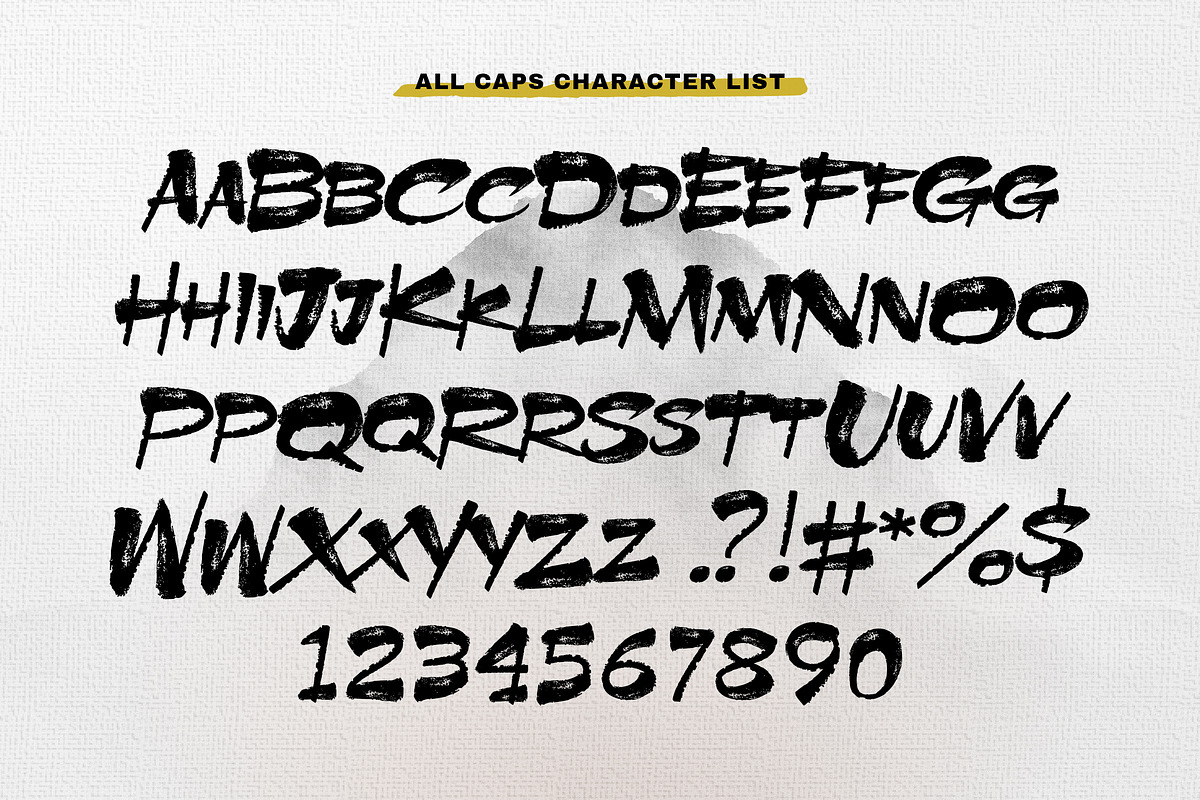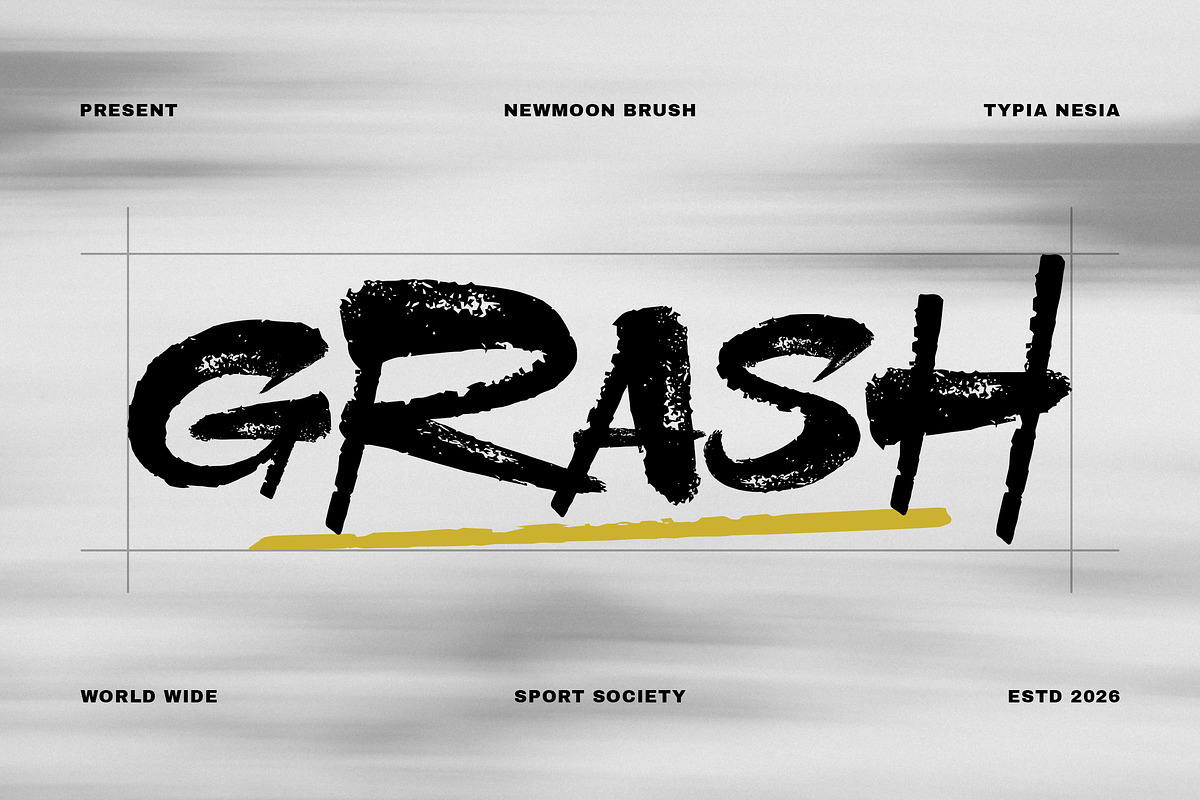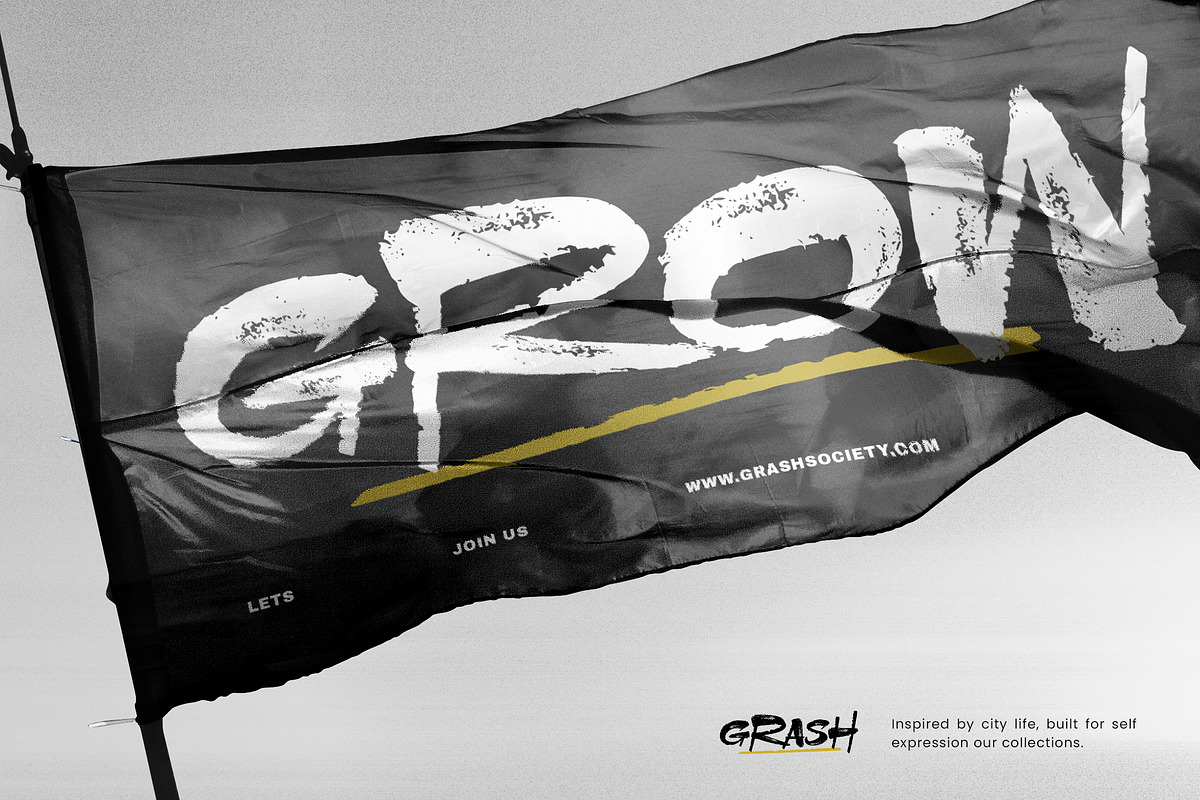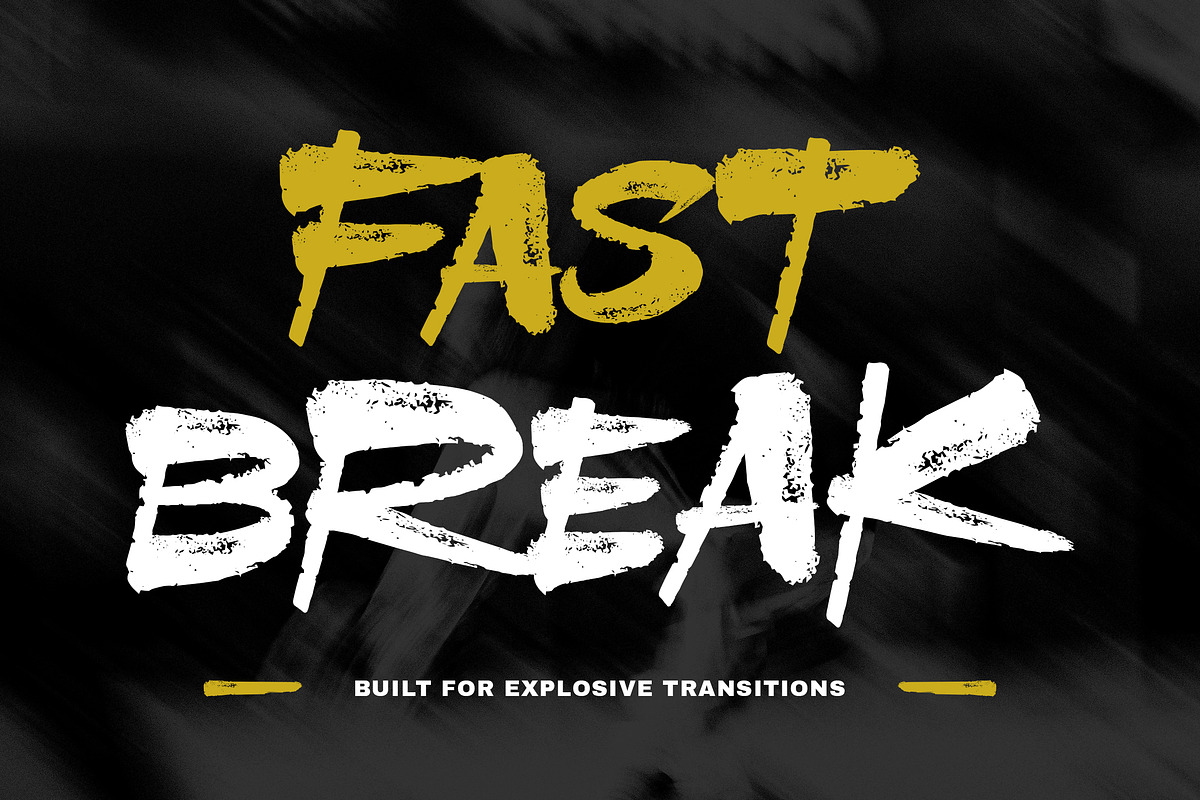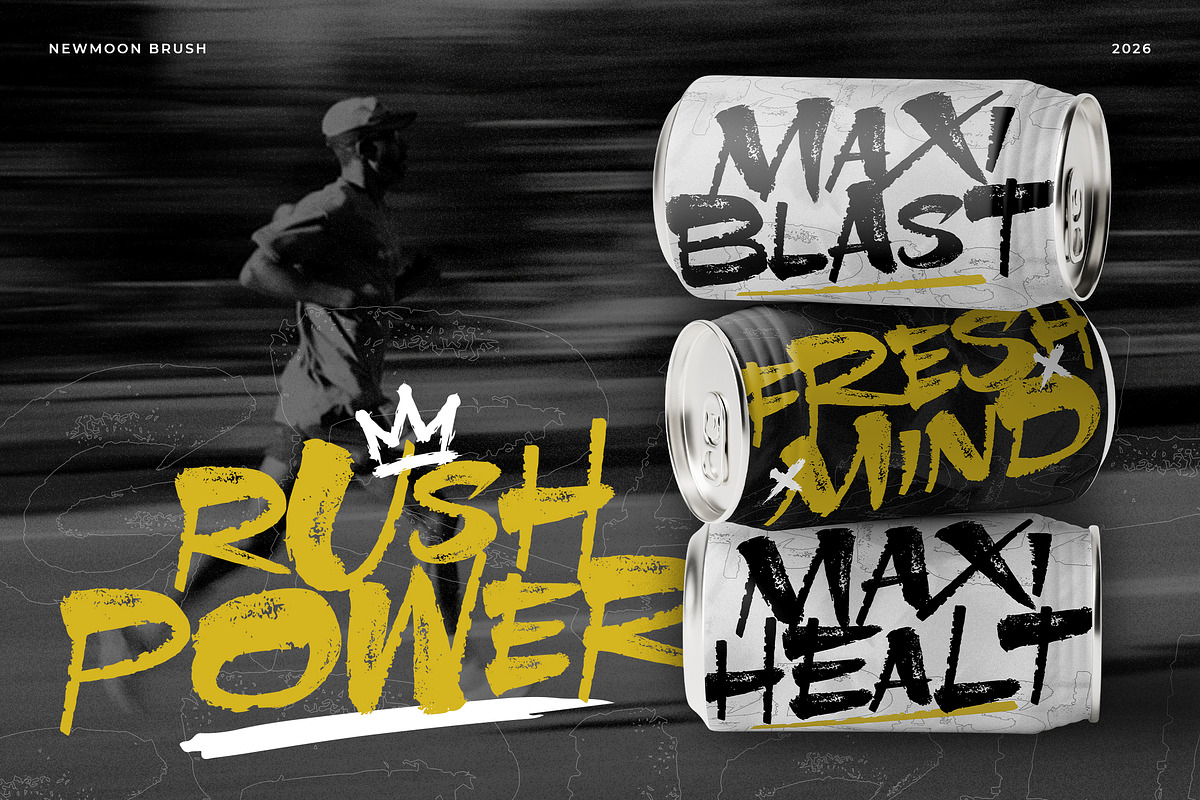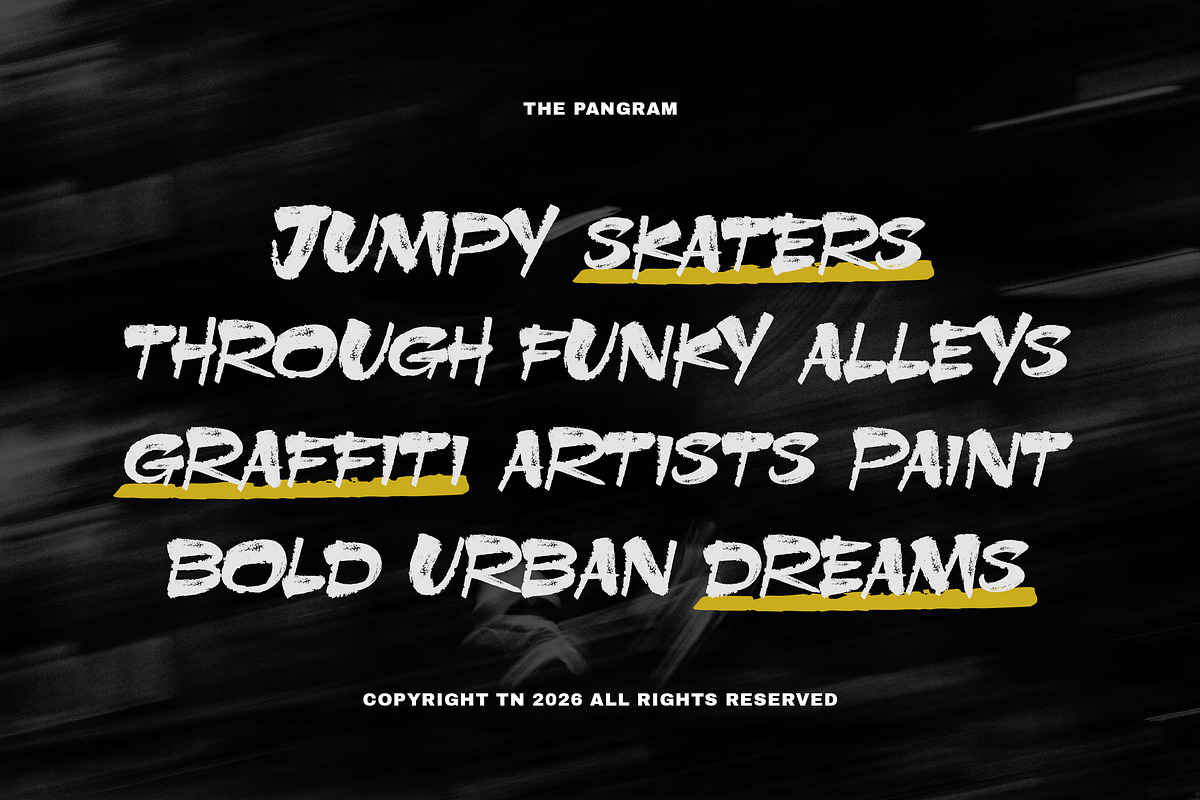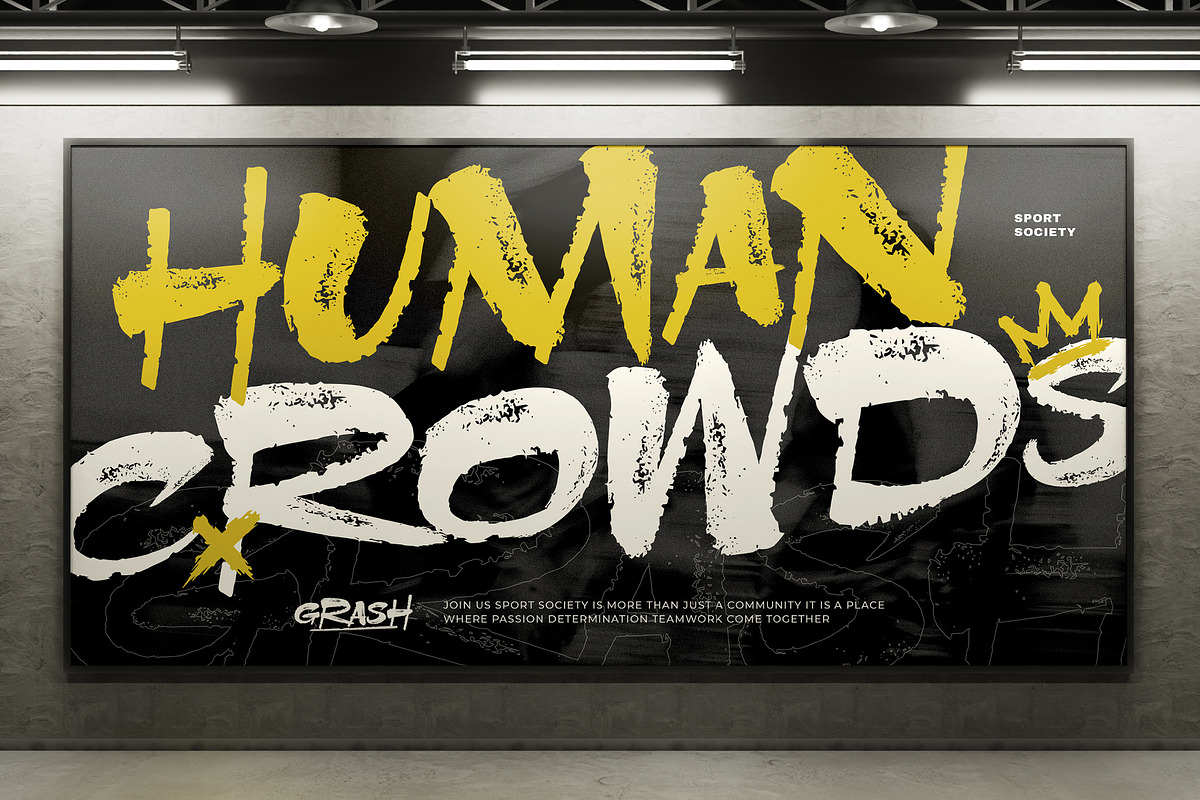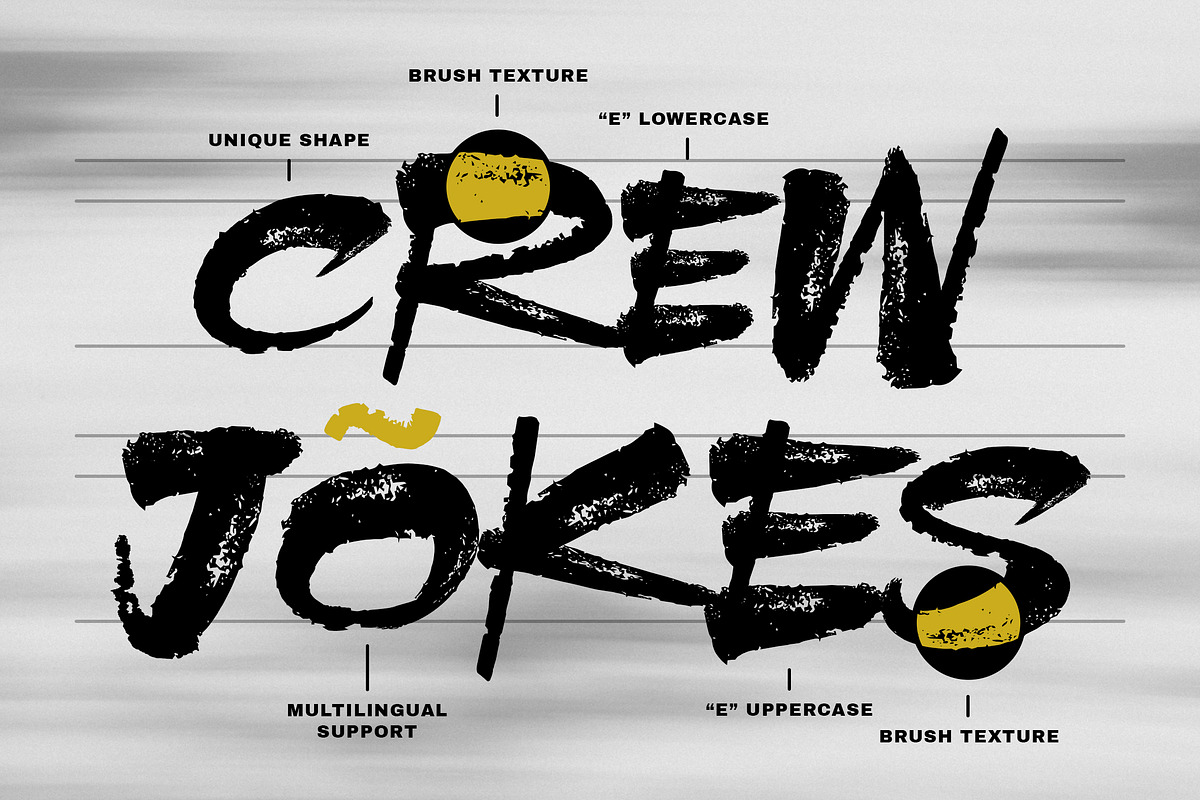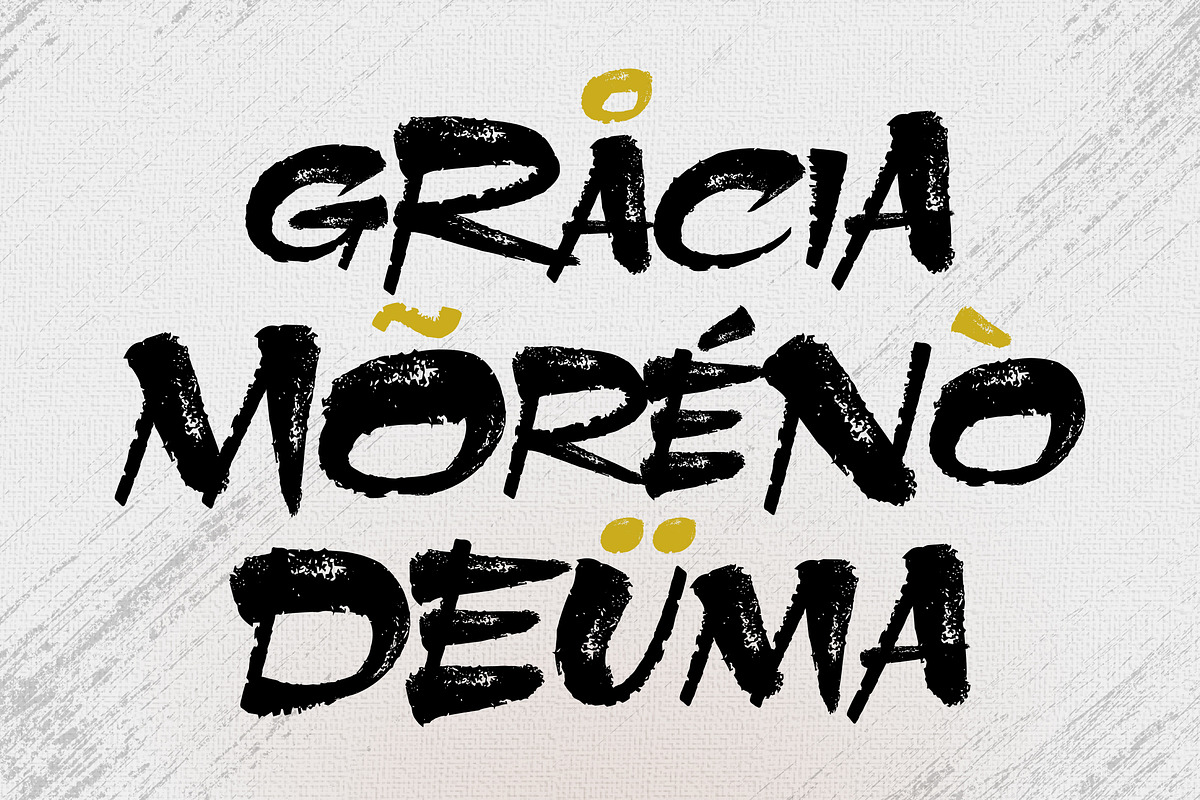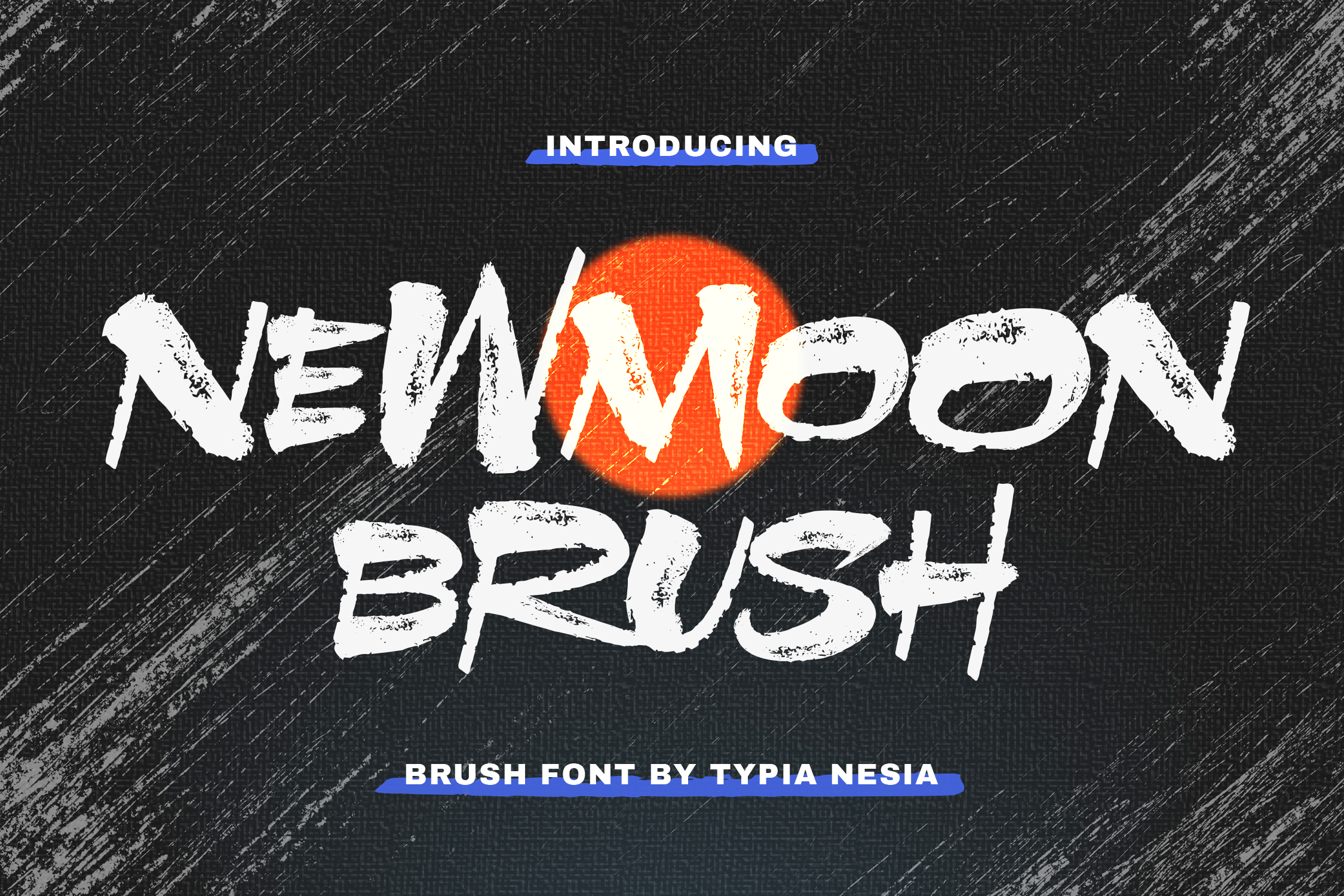
Newmoon Brush - Dry Brush Font
Newmoon Brush - Authentic Dry Brush Display Font for Street, Music & Creative Branding
Newmoon Brush is an expressive dry brush display font featuring authentic handcrafted strokes, rough textured edges, and bold artistic letterforms. Designed to capture natural brush movement, it delivers a dynamic visual impact that stands out across branding, posters, packaging, and creative display applications.
Perfect for music artwork, concert posters, street branding, gaming graphics, book covers, product packaging, advertising campaigns, social media content, and creative logo design. Bring raw energy and handcrafted character into every design with Newmoon Brush—a display font made to command attention and leave a lasting impression.